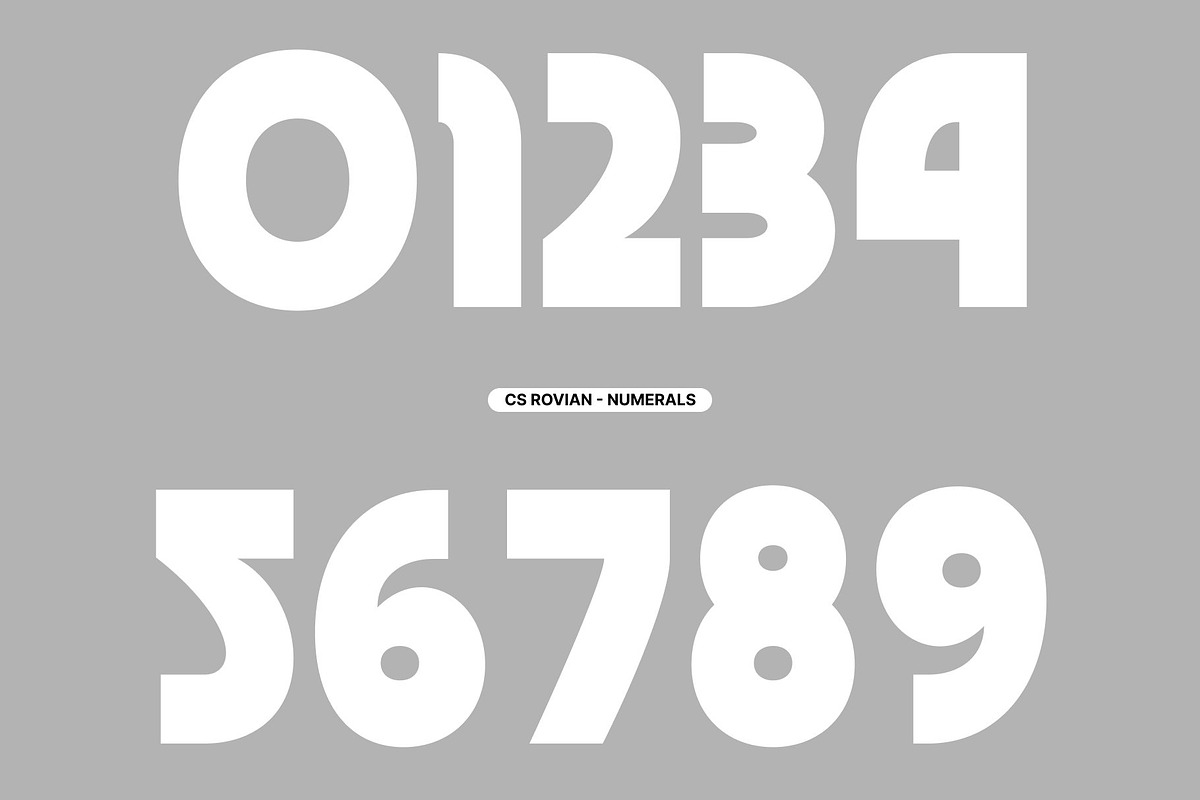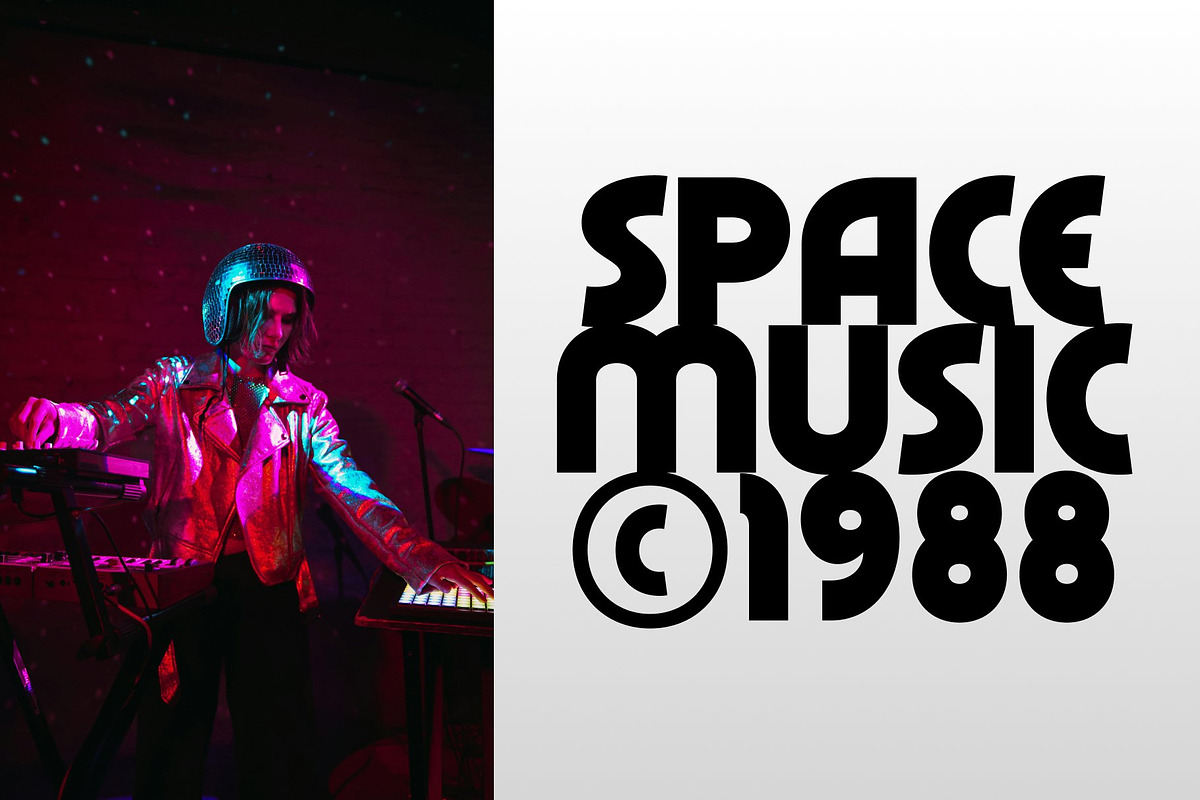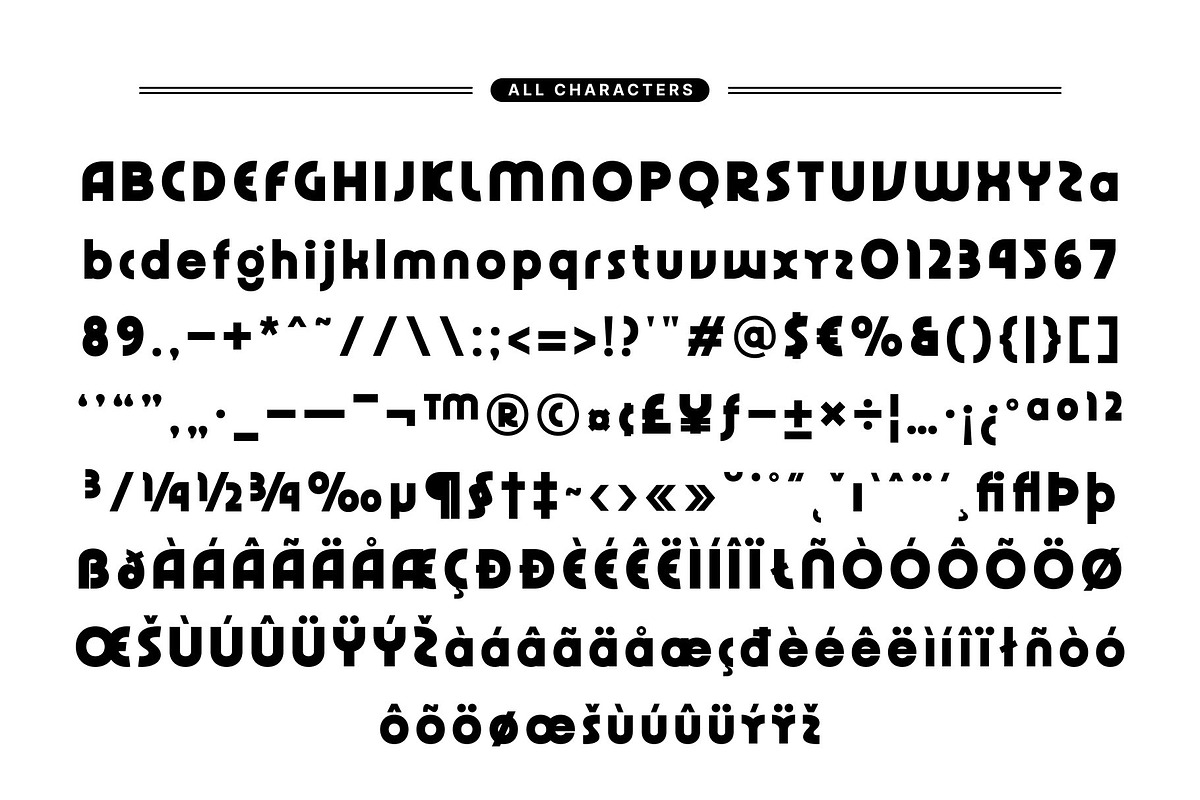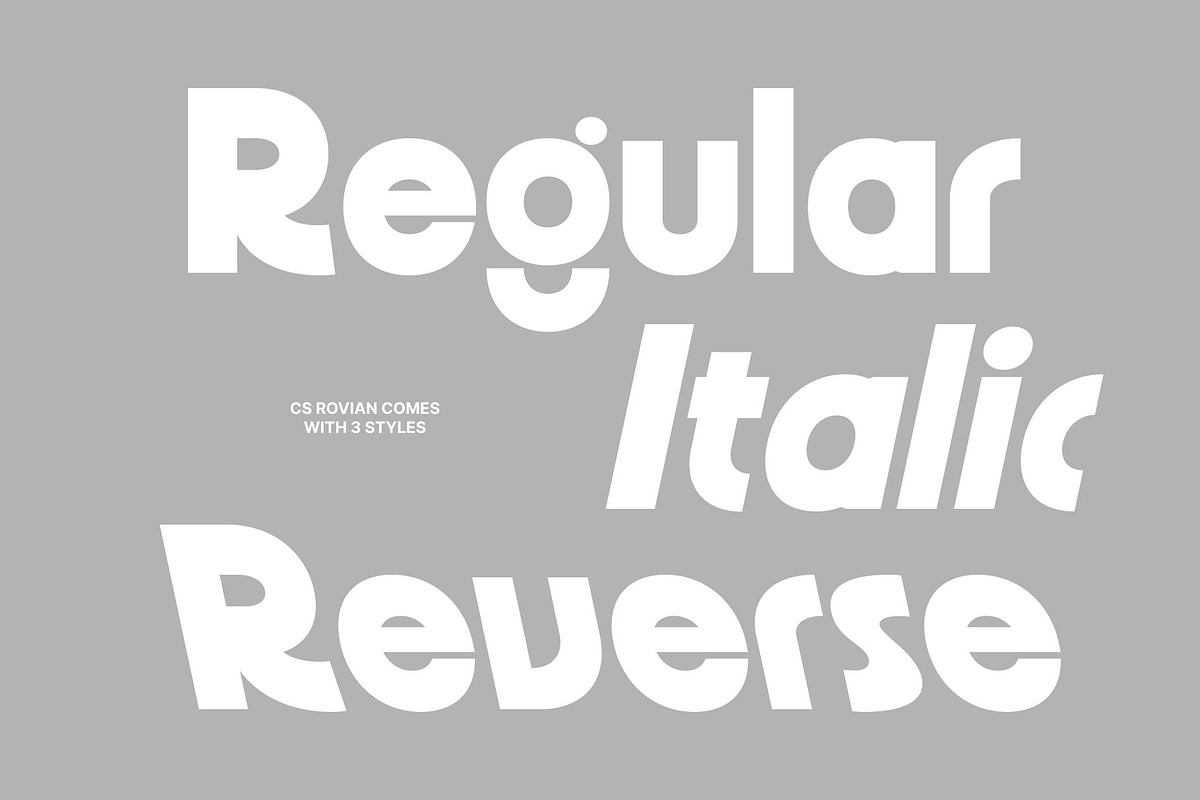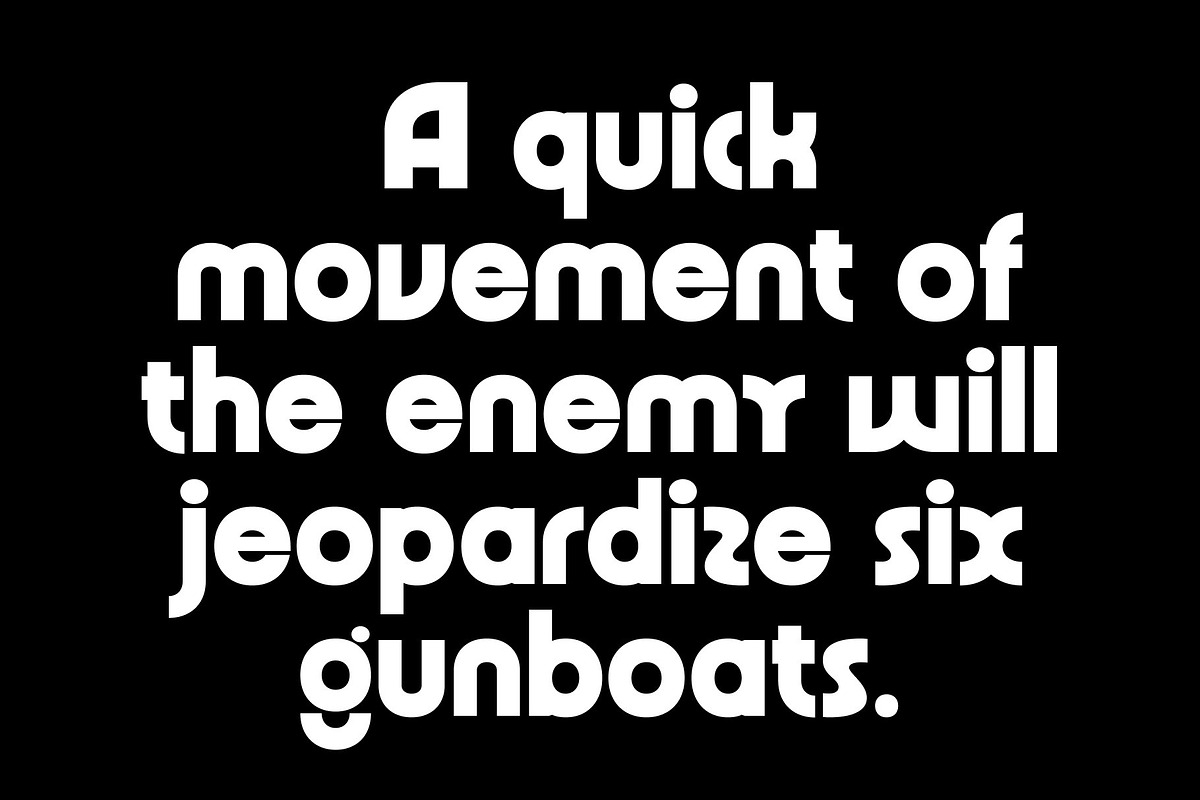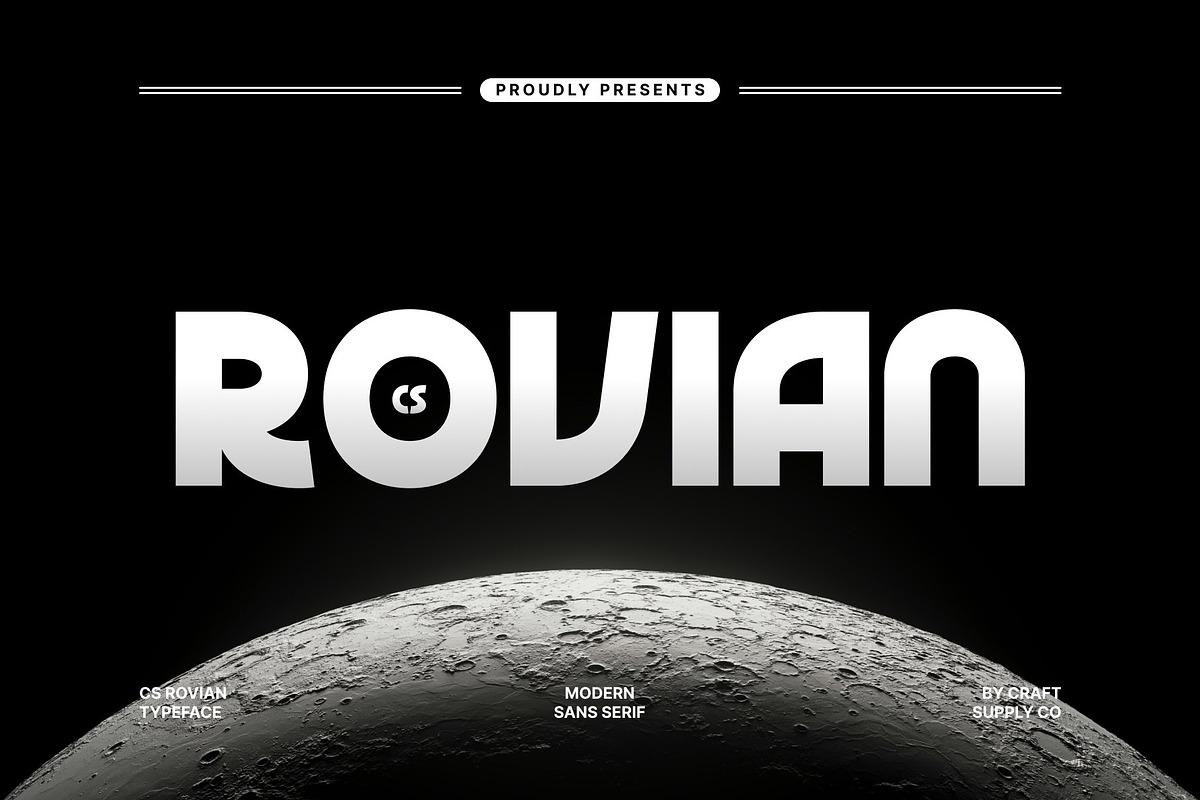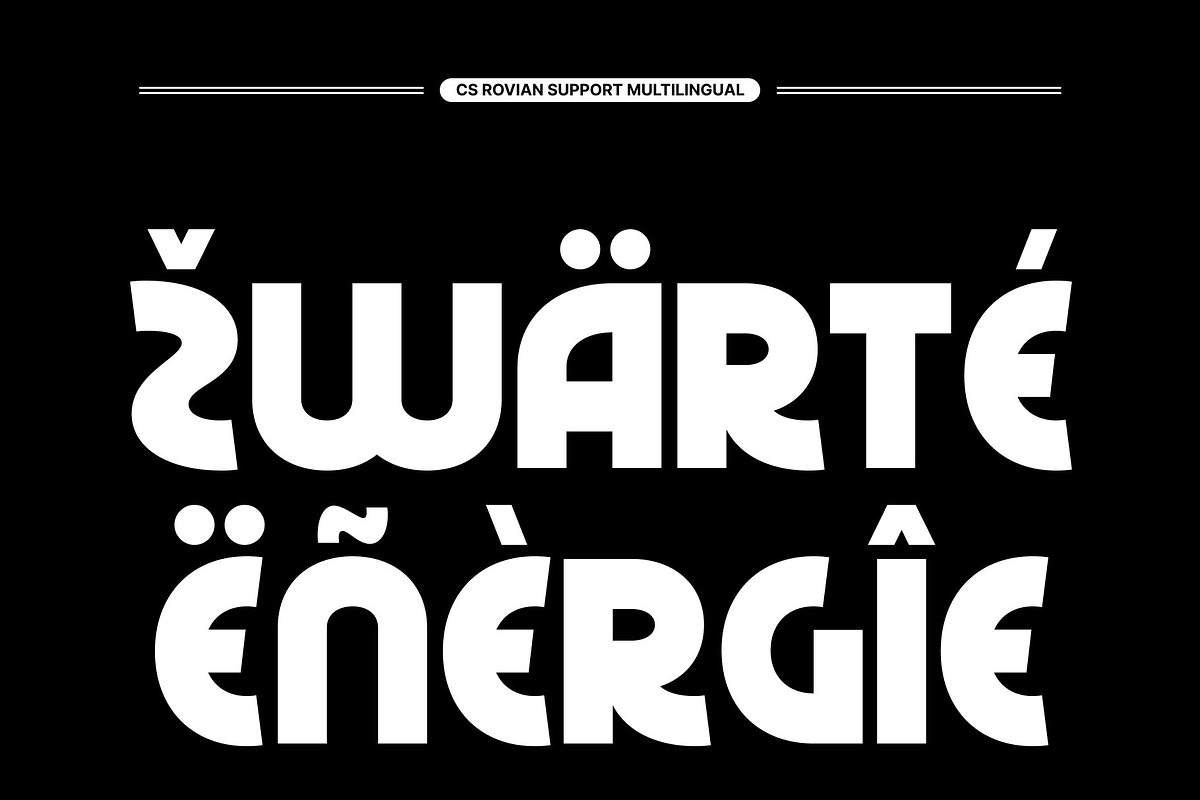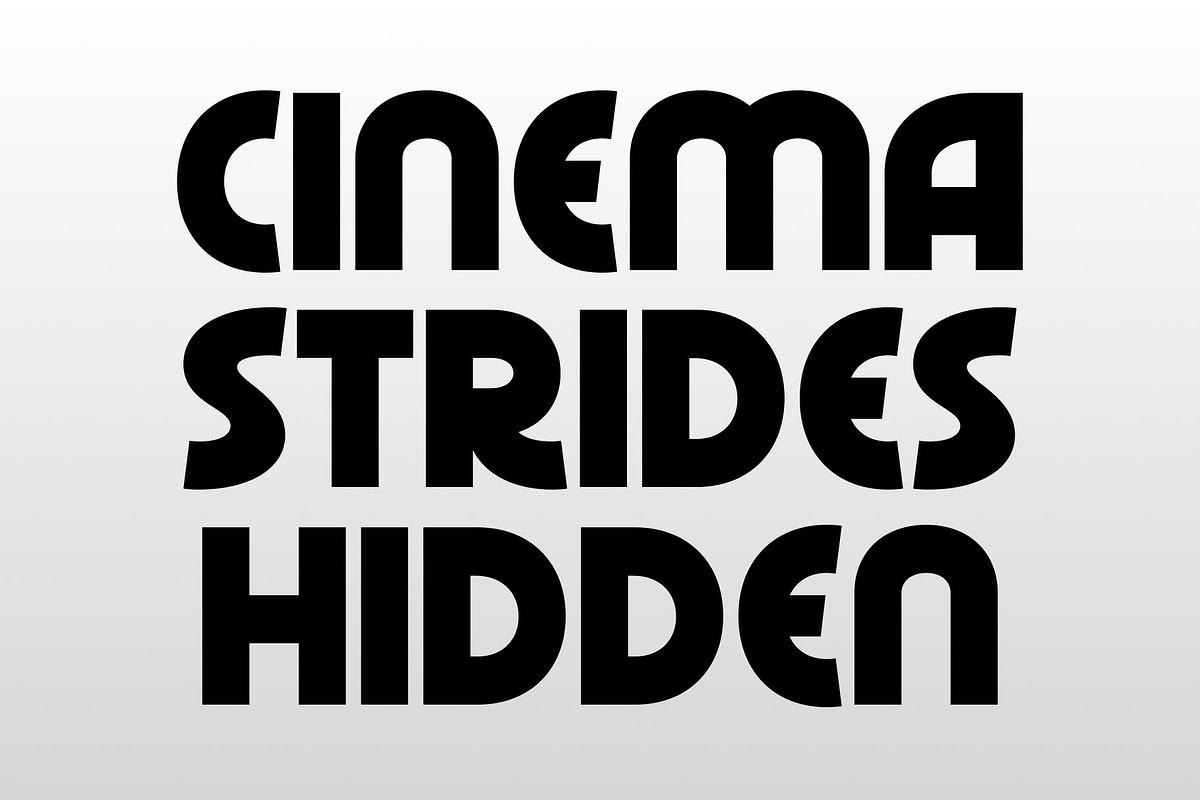
CS Rovian – Modern Sans Serif
CS Rovian – Modern Sans Serif with Geometric Techno Playfulness
Modern Sans Serif with Bold Geometric Style This is a modern sans serif font built around bold geometric forms and a strong techno influence. Its confident structure and clean construction create a powerful visual foundation, while playful details inject personality and energy into every character. The result is a typeface that feels cool, expressive, and unmistakably contemporary.
Techno Influence with Playful Character The techno-inspired shapes of this font give it a futuristic edge, while rounded transitions and creative proportions keep the design lively and approachable. This balance between precision and playfulness allows the font to stand out without feeling rigid. It delivers a stylish look that feels innovative, dynamic, and visually engaging.
Cool, Stylish, and Fresh Appearance This font communicates a modern attitude through its bold weight and fresh design language. Its geometric clarity ensures readability, while its expressive details add character and charm. This combination makes the font feel stylish and confident, perfect for creative projects that want to appear current and trend-forward.